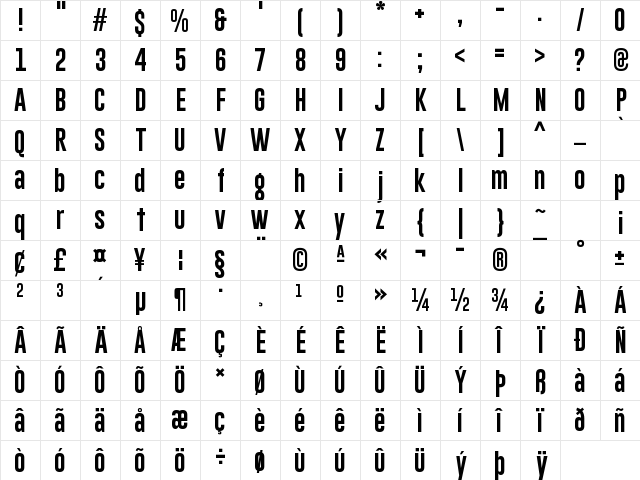
Gobold Lowplus Regular
Designer: Situjuh Nazara
Design Context for Gobold Lowplus
Gobold Lowplus is a composed and adaptable typeface that performs quietly and consistently across a wide range of design contexts. Its bold stroke weight gives it real presence on the page.
Pro Tip: Use Gobold Lowplus in both headline and body roles to test its range before committing to a single application.